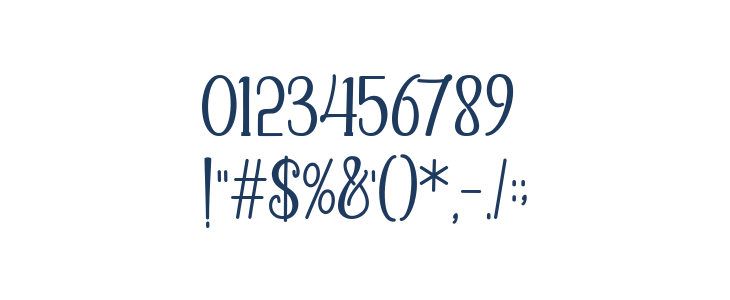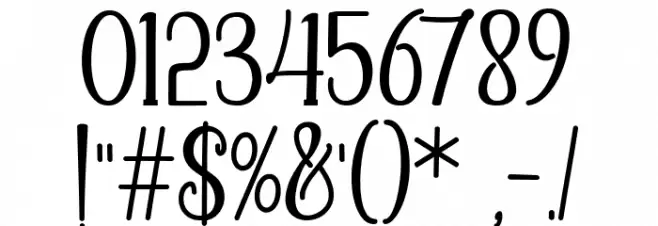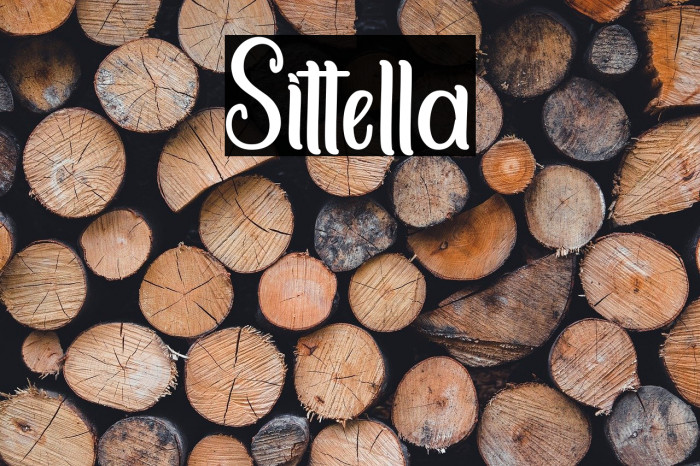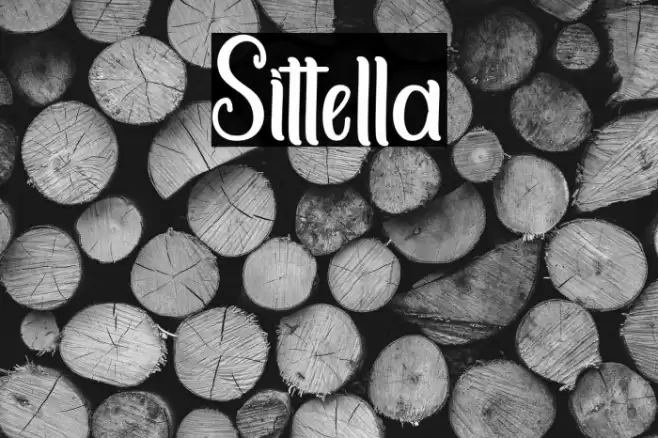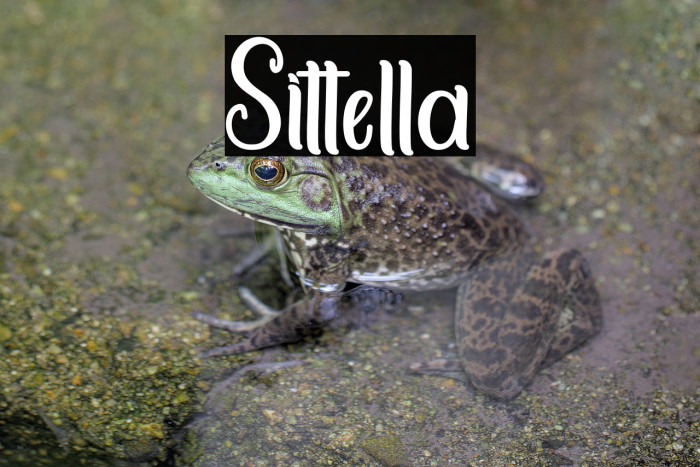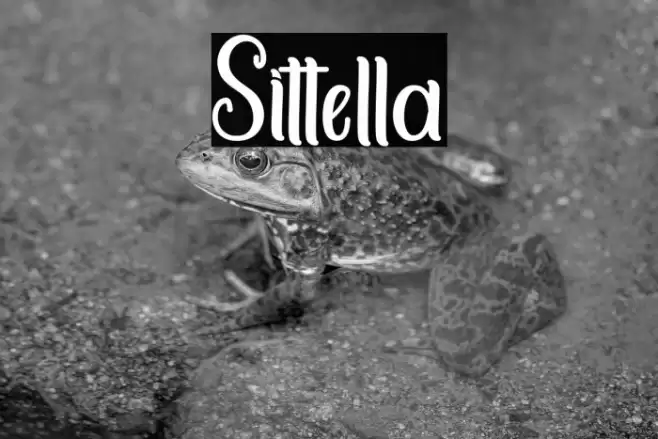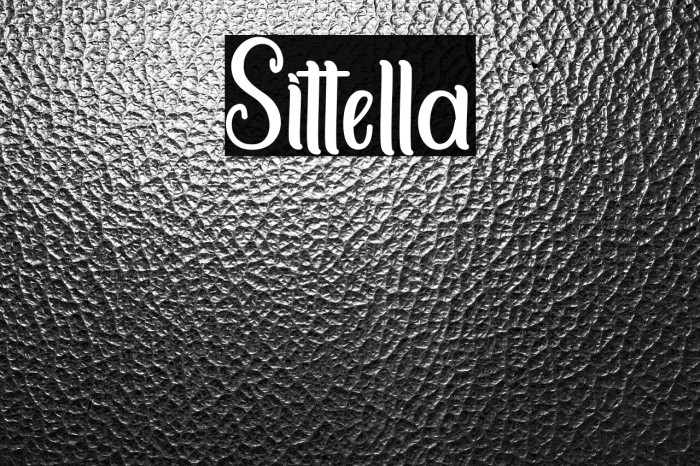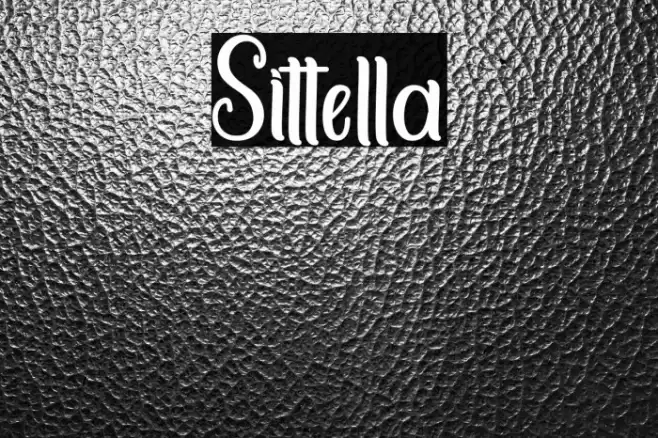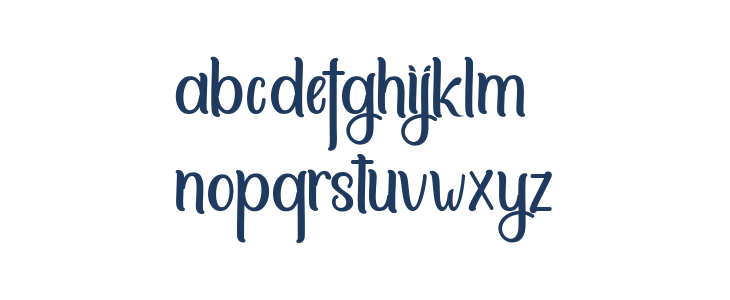
Sittella Font
Sittella Description
This font features a playful and whimsical style with a handwritten appearance. The characters are tall and narrow, with a slight slant that adds a dynamic feel. The strokes are smooth and rounded, giving it a friendly and approachable look. The uppercase letters are distinct with a mix of straight and curved lines, while the lowercase letters maintain a consistent flow. Numbers and special characters are designed to match the overall playful aesthetic, making it suitable for creative and informal projects.
| Proposed Projects | Ideal for greeting cards, children's books, playful branding, and creative social media graphics. |